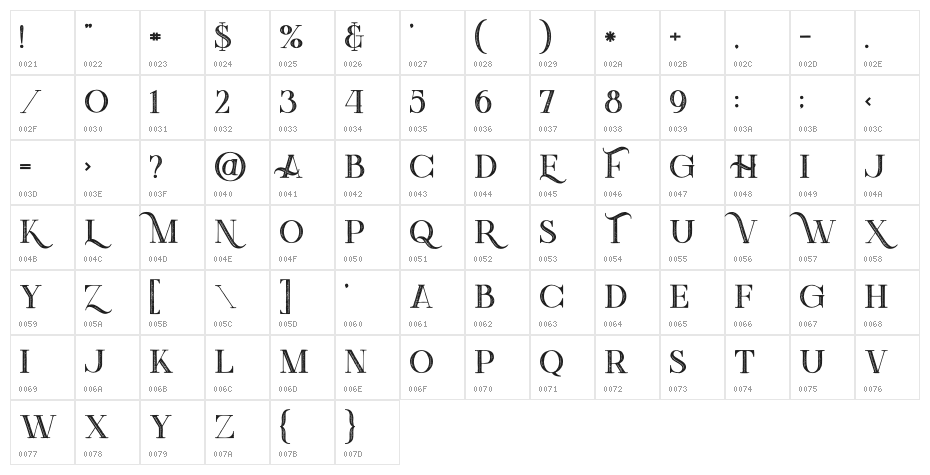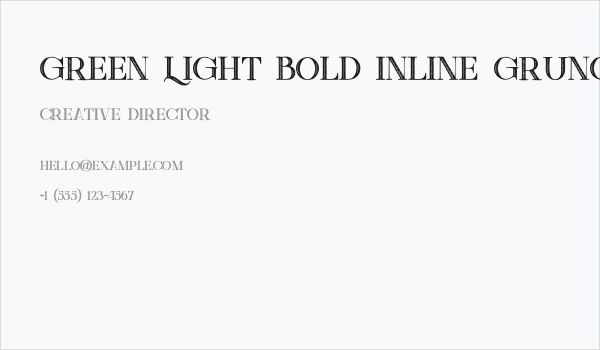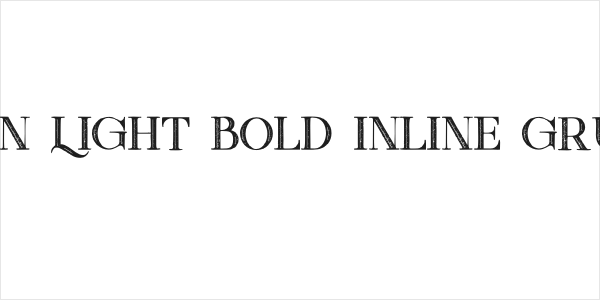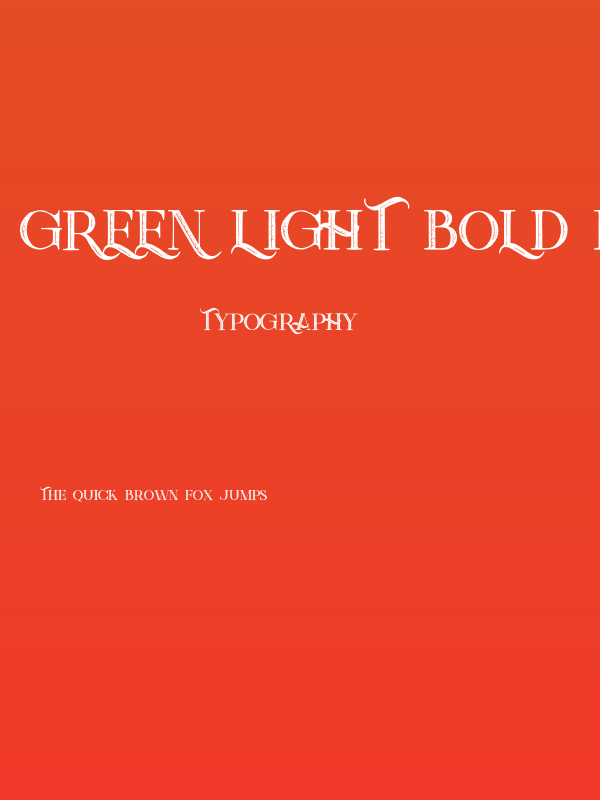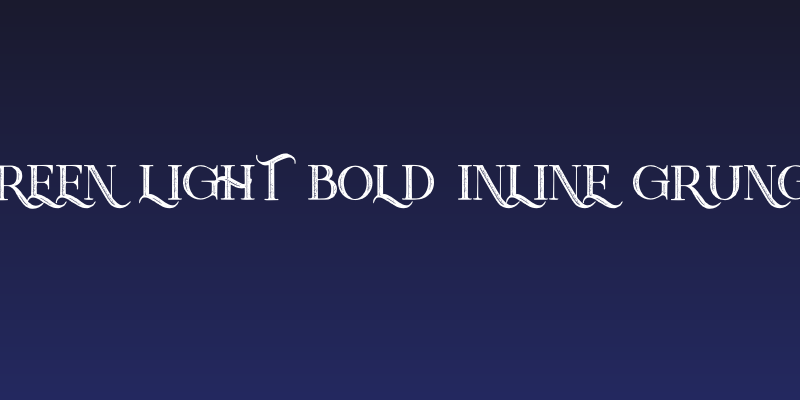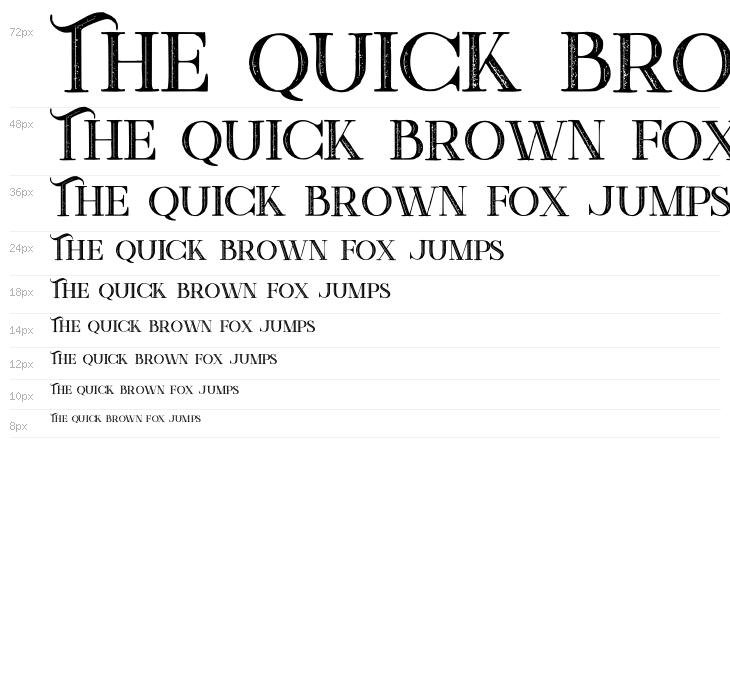
Green Light Bold Inline Grunge Font
Green Light Bold Inline Grunge Description
This font features a bold and distinctive design with an inline grunge effect that adds a textured, worn look to each character. The uppercase letters are ornate, with some characters featuring unique flourishes that give them a decorative flair. The lowercase letters maintain a consistent style, complementing the uppercase with their own subtle embellishments. Numbers and special characters are designed to match the overall aesthetic, ensuring a cohesive appearance across all text. The font's bold weight and high contrast between thick and thin strokes make it stand out, while the inline grunge texture adds a vintage, distressed feel. This combination of elements creates a font that is both eye-catching and versatile, suitable for a variety of creative projects.
| Overall Style | Vintage, Decorative |
| Proposed Projects | Ideal for posters, album covers, branding, and any project requiring a bold, vintage aesthetic. |